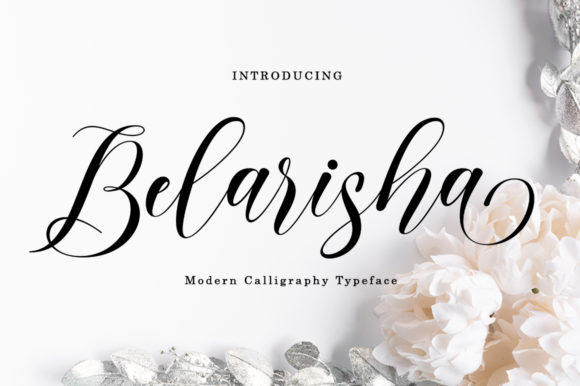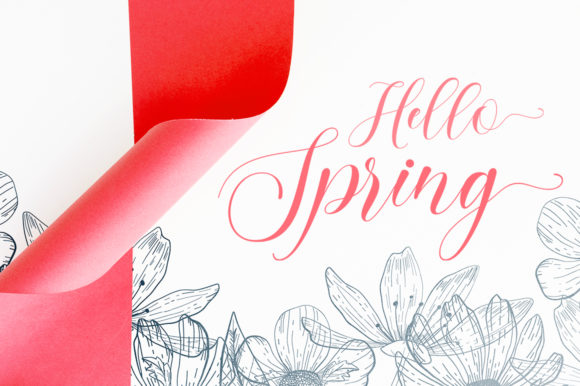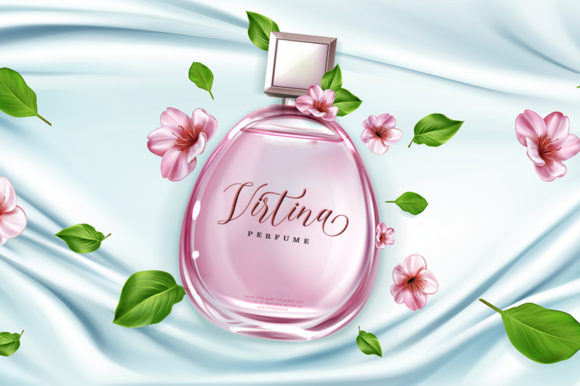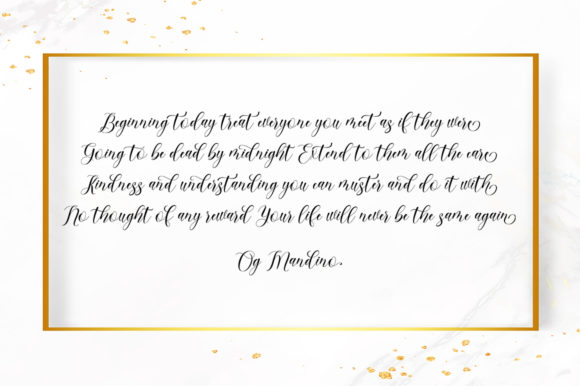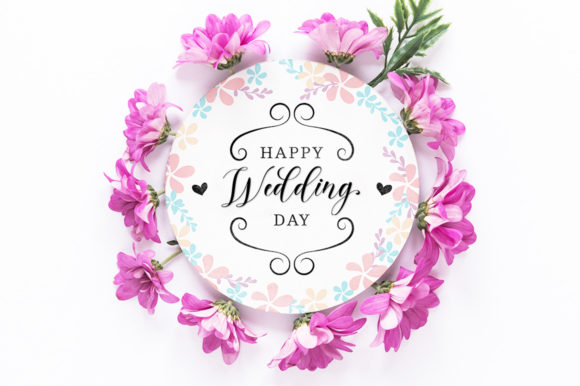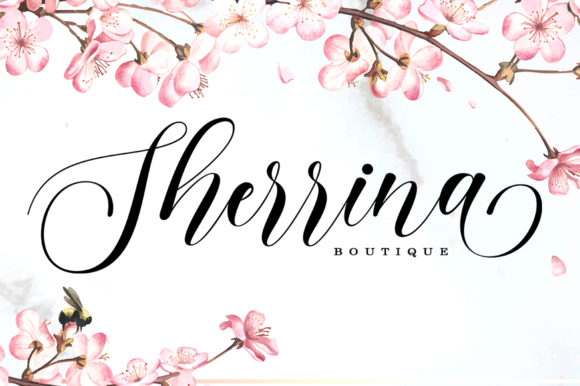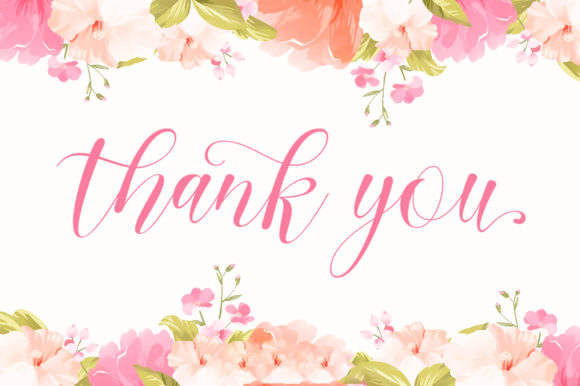
Belarisha Font
About Belarisha Font
Belarisha is a luxurious and elegant script font. It’s perfect for branding, logos, wedding invitations, quotes and any creative project.